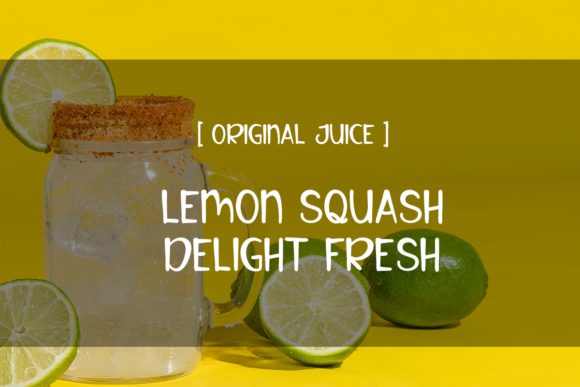
Cream Lemonade Font: A Cool and Readable Handwritten Font for Your Creative Projects
In the world of typography, fonts play a crucial role in conveying the tone and personality of a brand or creative project. With thousands of fonts available, finding the right one that suits your needs can be overwhelming. However, if you’re looking for a cool and readable handwritten font that can elevate your creations, look no further than Cream Lemonade Font. In this article, we’ll dive into the features and benefits of Cream Lemonade Font, and explore how it can be a wonderful asset to your font library.
What is Cream Lemonade Font?
Cream Lemonade Font is a beautiful, handwritten font designed to add a touch of warmth and personality to your creative projects. With its smooth and flowing lines, this font exudes a sense of friendliness and approachability, making it perfect for a wide range of applications, from branding and advertising to packaging and digital media.
Key Features of Cream Lemonade Font
- Cool and Readable: Cream Lemonade Font is designed to be both cool and readable, making it perfect for use in body text, headings, and titles.
- Handwritten Style: This font features a beautiful, handwritten style that adds a touch of personality and warmth to your creations.
- Versatile: Cream Lemonade Font is versatile and can be used for a wide range of projects, from branding and advertising to packaging and digital media.
Benefits of Using Cream Lemonade Font
So, why should you choose Cream Lemonade Font for your creative projects? Here are just a few benefits of using this amazing font:
- Enhances Readability: Cream Lemonade Font is designed to be highly readable, making it perfect for use in body text and other applications where readability is key.
- Adds Personality: This font adds a touch of personality and warmth to your creations, helping to convey your brand’s tone and style.
- Versatile: Cream Lemonade Font is versatile and can be used for a wide range of projects, making it a great addition to your font library.
Tips and Tricks for Getting the Most Out of Cream Lemonade Font
Here are just a few tips and tricks for getting the most out of Cream Lemonade Font:
In conclusion, Cream Lemonade Font is a cool and readable handwritten font that can elevate your creative projects and add a touch of personality and style. With its versatility, ease of use, and range of benefits, this font is a wonderful asset to your font library. Whether you’re a designer, marketer, or simply someone looking for a great font for your project, Cream Lemonade Font is definitely worth checking out.
- What is Cream Lemonade Font? Cream Lemonade Font is a beautiful, handwritten font designed to add a touch of warmth and personality to your creative projects.